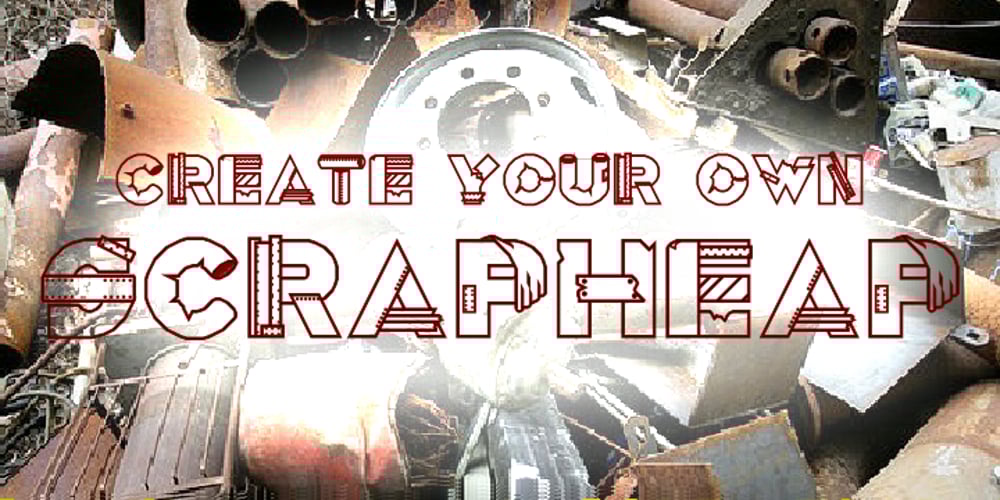
RM Scrapheap
RM Scrapheap font
RM Scrapheap Font Family was designed by Ray Meadows and published by Ray Meadows. RM Scrapheap contains 1 styles and family package options. Put together from a collection of old bits and pieces, RM Scrapheap is a distinctive display face with many uses. Due to the modular nature of this design there may be a slight lack of smoothness to the curves at very large point sizes (around 100 pt and above).